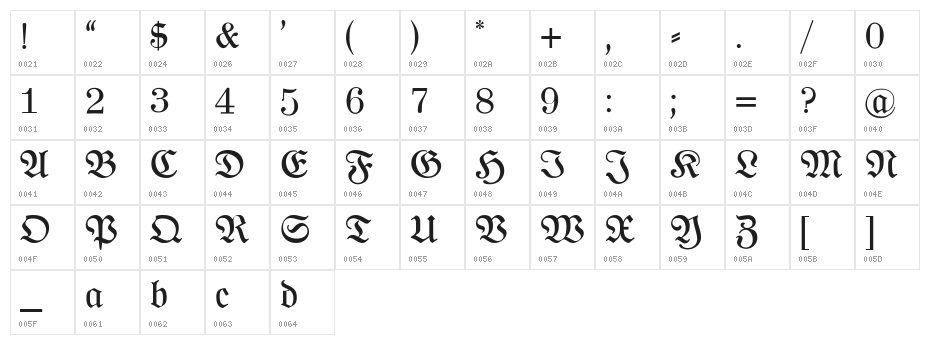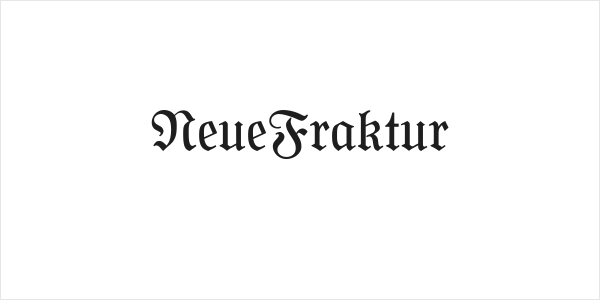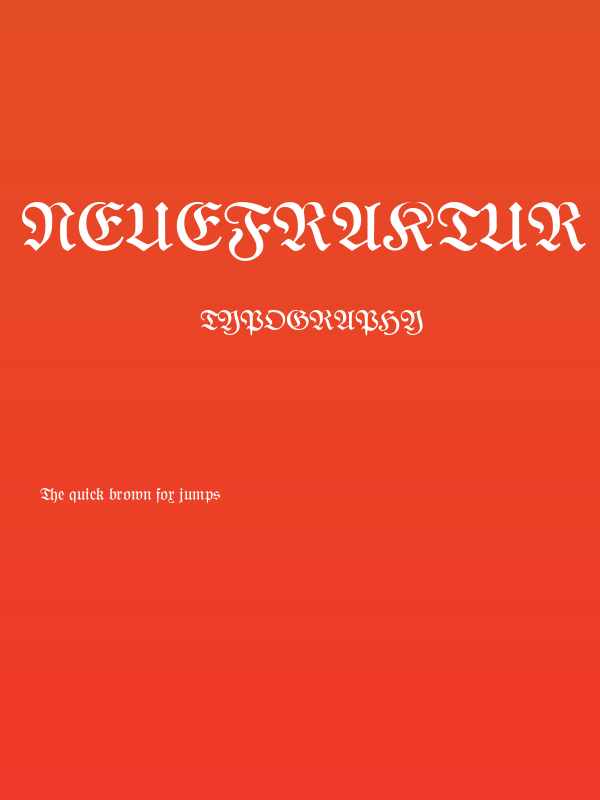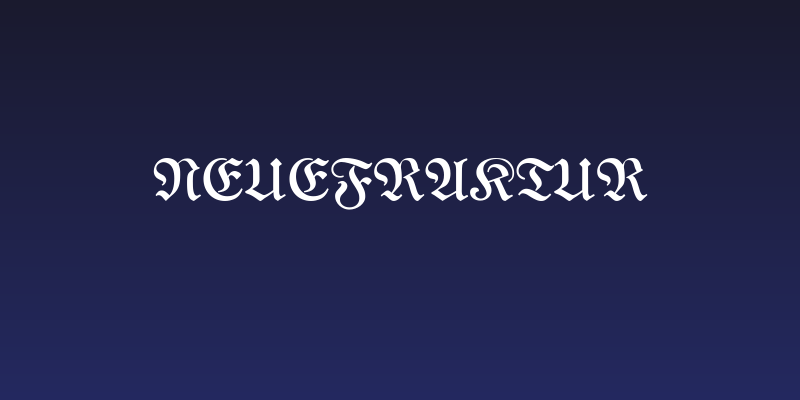
NeueFraktur Font
NeueFraktur Description
This font is a modern interpretation of traditional blackletter styles, characterized by its intricate and ornate letterforms. The uppercase letters feature sharp, angular strokes with decorative flourishes, while the lowercase letters maintain a more streamlined yet still elaborate appearance. The numerals are bold and distinct, echoing the historical roots of the typeface. Special characters are designed with a similar level of detail, ensuring consistency across the entire set. The overall aesthetic is both classic and contemporary, making it suitable for a variety of creative applications.
Use CaseLogos, Headlines, Decorative text
Proposed ProjectsIdeal for use in branding, posters, book covers, and any project requiring a historical or gothic touch.